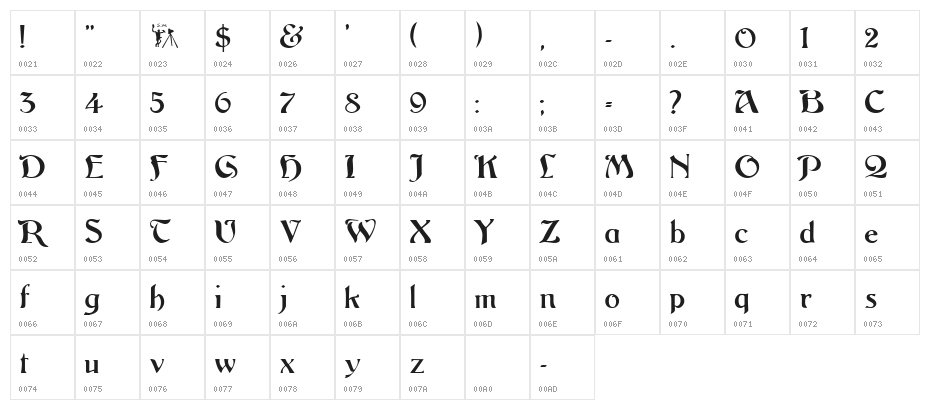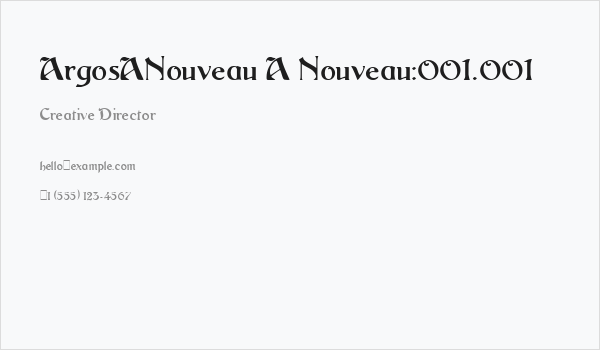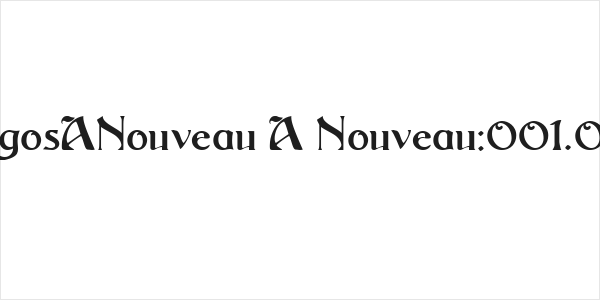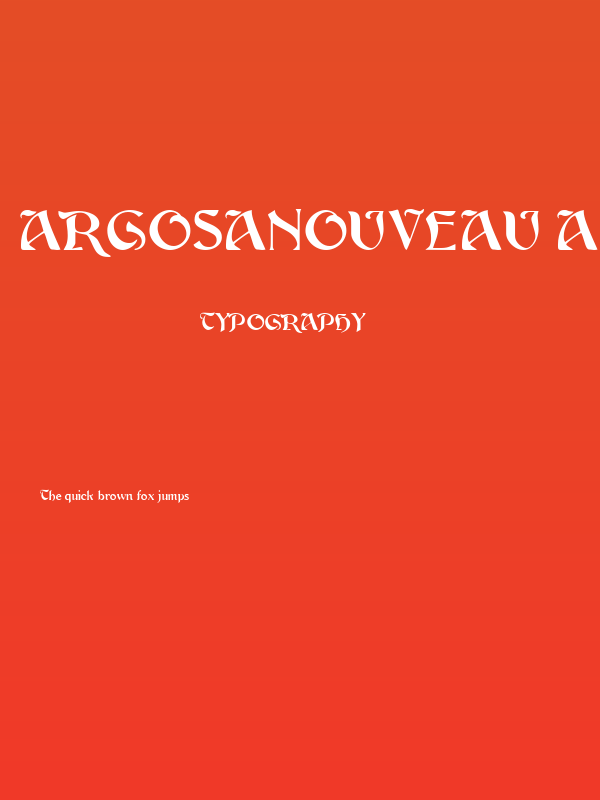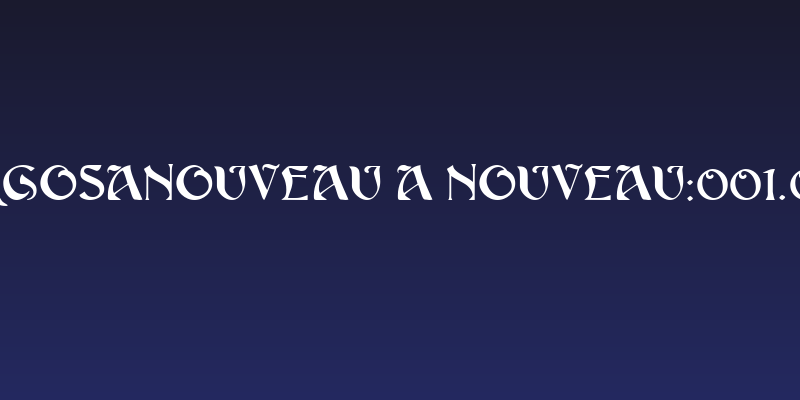
ArgosANouveau A Nouveau:001.001 Font
ArgosANouveau A Nouveau:001.001 Description
This font exudes a unique blend of elegance and boldness, characterized by its sharp, angular serifs and distinct, flowing curves. The uppercase letters are particularly striking, with a dramatic flair that suggests a sense of movement and dynamism. The lowercase letters maintain a consistent style, offering a harmonious balance between readability and artistic expression. The numerals are crafted with a similar attention to detail, ensuring they stand out while remaining cohesive with the overall design. Special characters are thoughtfully integrated, adding versatility to the font's application. The overall aesthetic is reminiscent of a modern take on traditional calligraphy, making it suitable for projects that require a touch of sophistication and creativity.
| Proposed Projects | This font is perfect for branding, logo design, book covers, and high-end product packaging. Its distinctive style also makes it suitable for invitations, posters, and any project that requires a touch of elegance and creativity. |